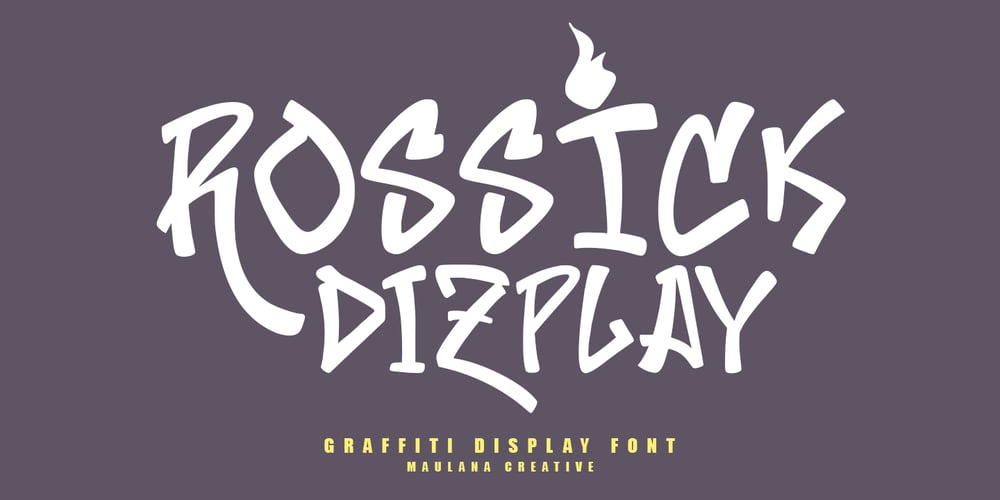
MC Rossick
MC Rossick font
MC Rossick Font Family was designed by Gilang Maulana and published by Maulana Creative. MC Rossick contains 1 styles and family package options. Rossick graffiti display font, fun character with a alternates. To give you an extra creative work. Rossick graffiti display font support multilingual language.Many Thanks